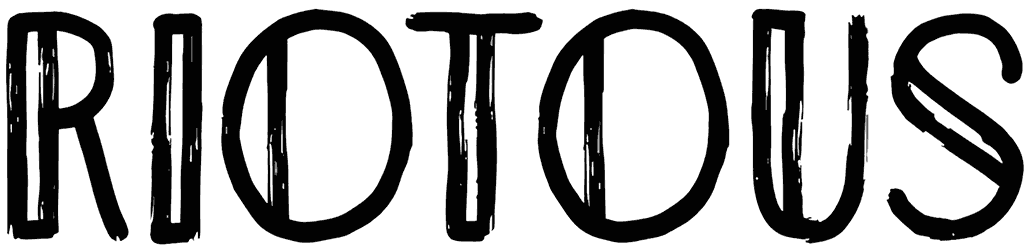
Riotous Font
Riotous is designed as if it has been affected by time and nature and has a worn appearance. This eroded font has a relatively rough texture, and the lines can convey an adventurous spirit.
So if you want to create a design that will survive the passage of time, combine two styles of uppercase letters and don’t worry about the lack of lowercase letters. This tribal font is versatile enough to take your posters, ads, and t-shirts to new heights.